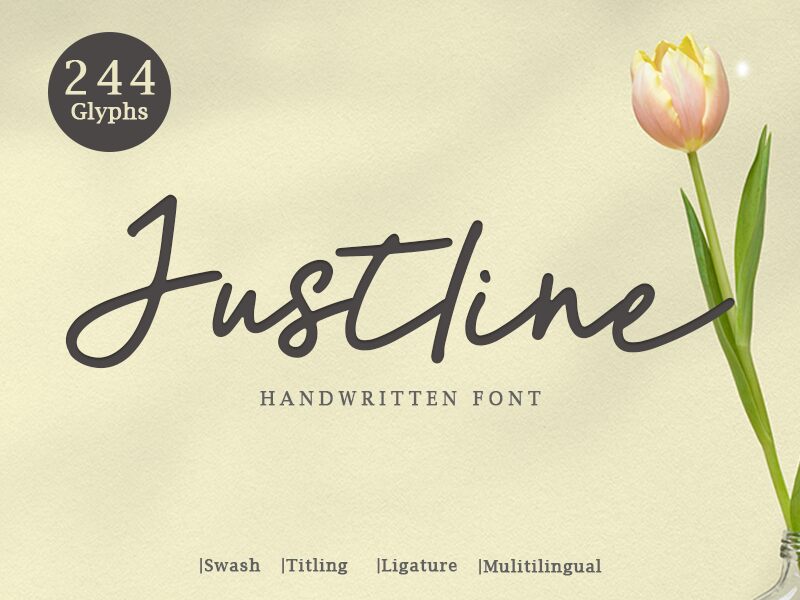
Justline is a captivating handwritten font designed by the talented Alif Ryan Zulfikar. With its semi-light weight, this font exudes elegance and sophistication. Its fluid strokes and charming curves make it perfect for creating eye-catching logos, branding materials, and invitations. Whether you're designing for a high-end fashion brand or a whimsical bakery, Justline adds a touch of personality and uniqueness to any project. Embrace the versatility of this font and let your creativity flow in various design projects like packaging, social media graphics, or even greeting cards.